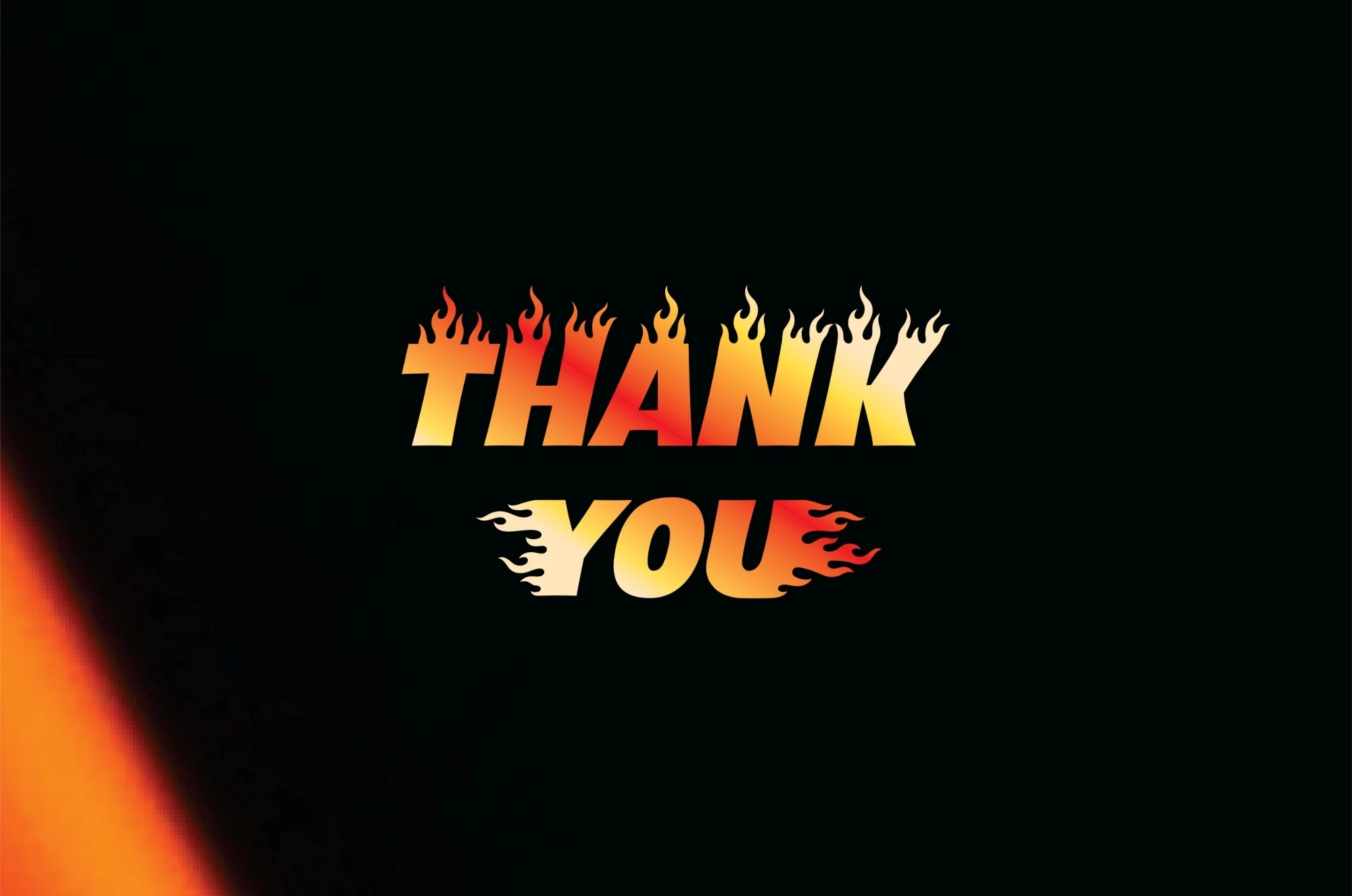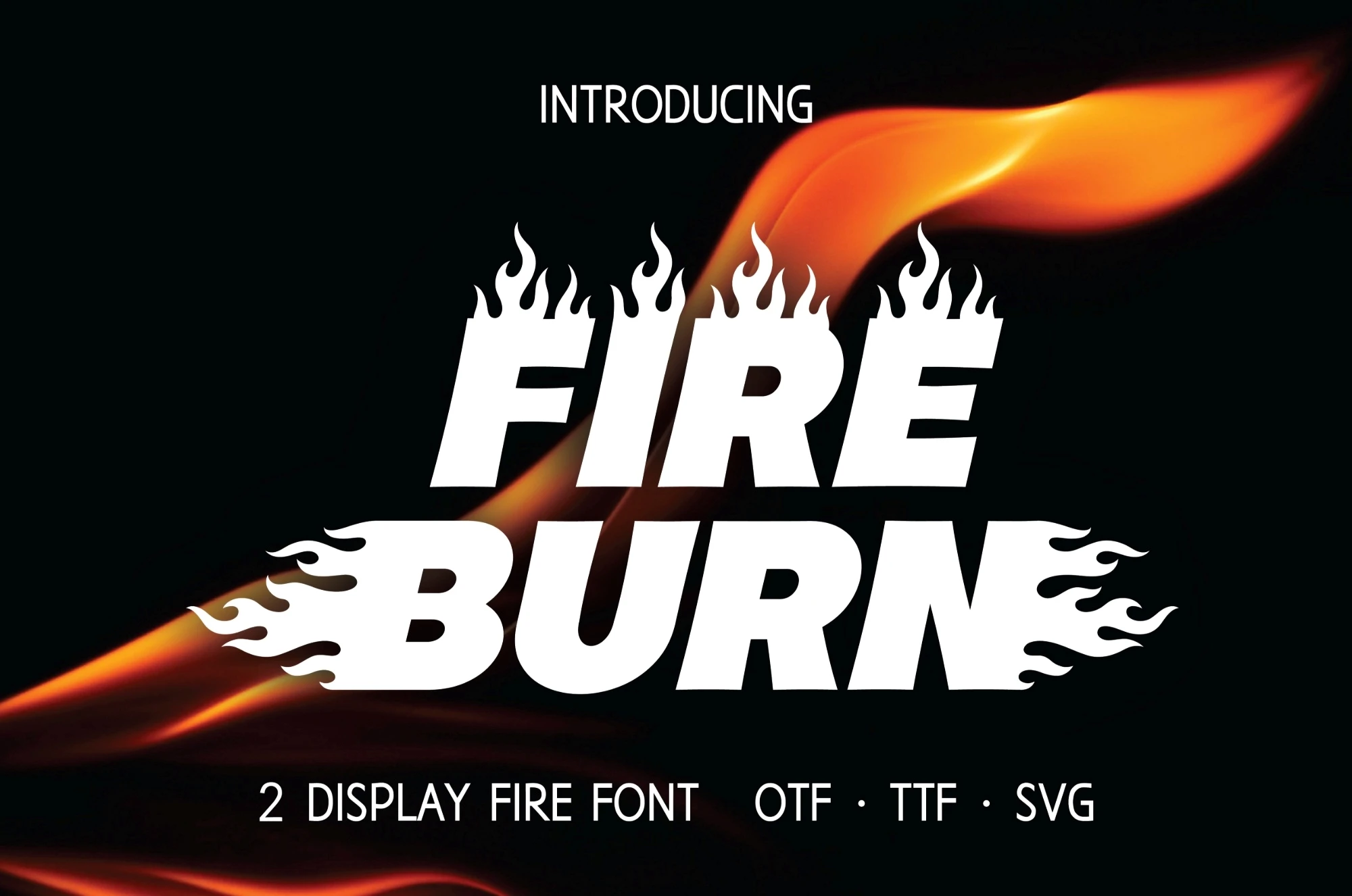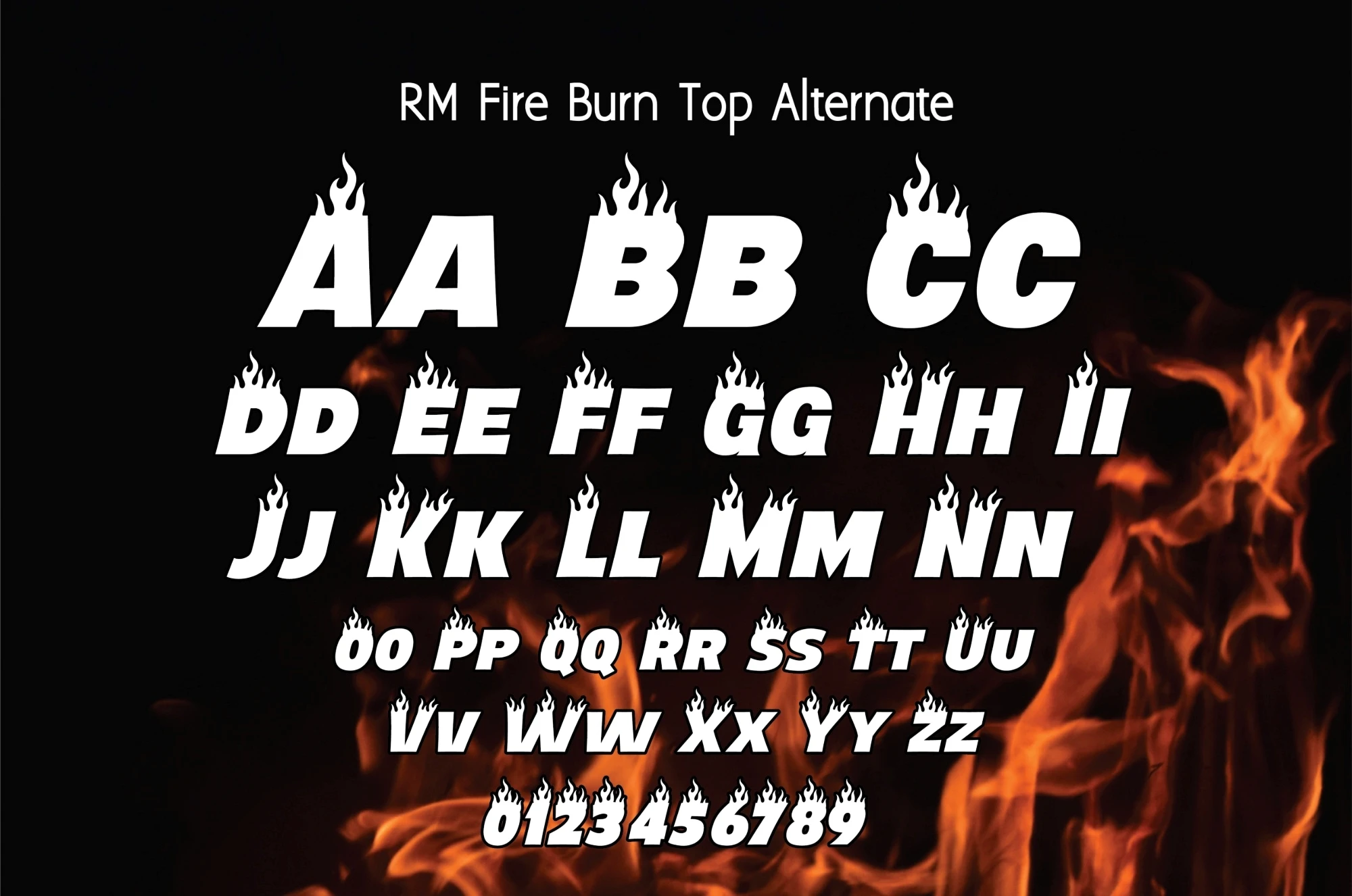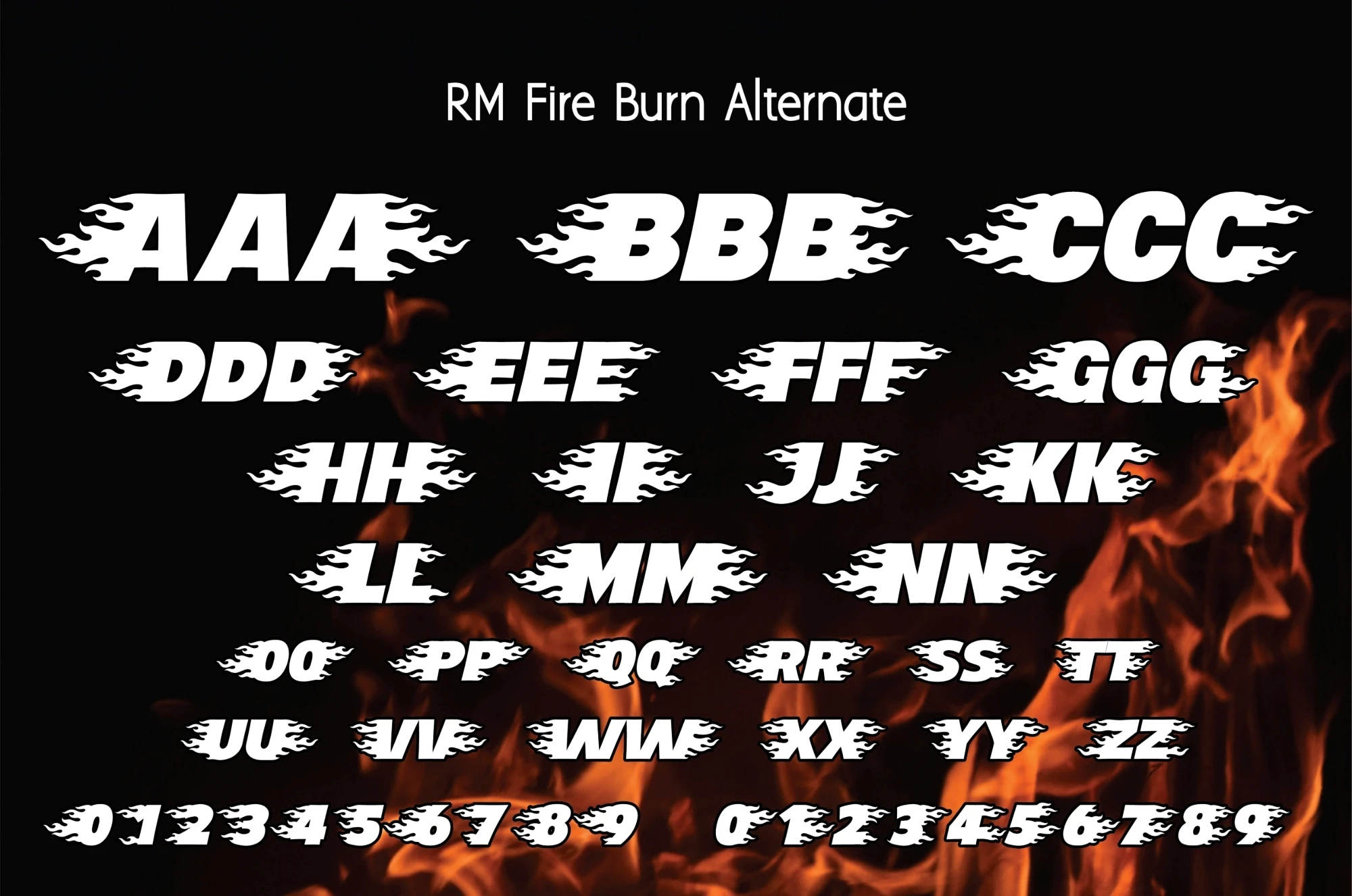
Presenting Fire Burn, a picturesque font that invites the mesmerizing flare of flames into your design repertoire. This font sets your creativity alight, exhibiting fiery effects that brilliantly alternate from front to back, and peak at the top. It's akin to holding an enchanting ember in your hands, so warm and alive, it could dance. The Fire Burn font instills your projects with an invigorating, evocative touch and simplicity of use that can unfetter your imagination, all the while giving your work an exclusive sizzle of bold intensity.